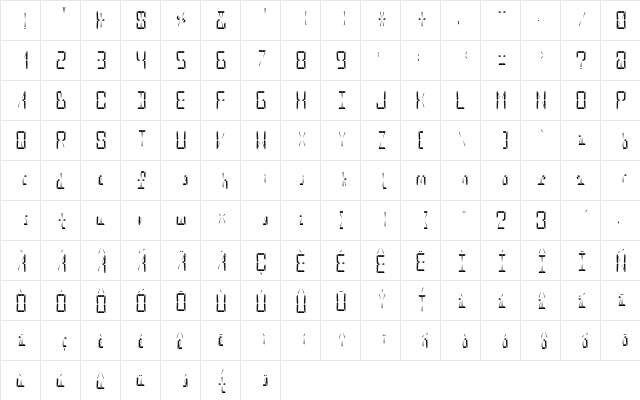
Hypernova Display Regular
Design Context for Hypernova Display Typeface
Hypernova Display is built around its visual character rather than neutral utility — its distinctive forms are designed to make an impression at display sizes.